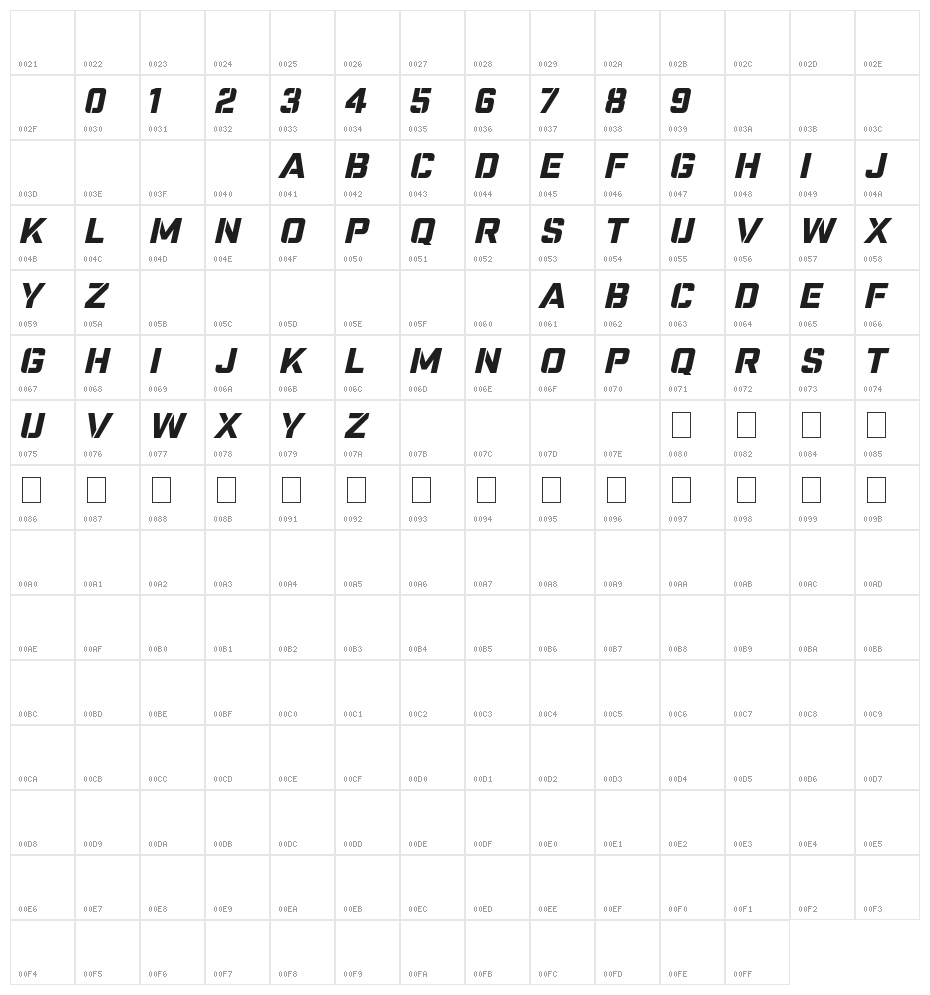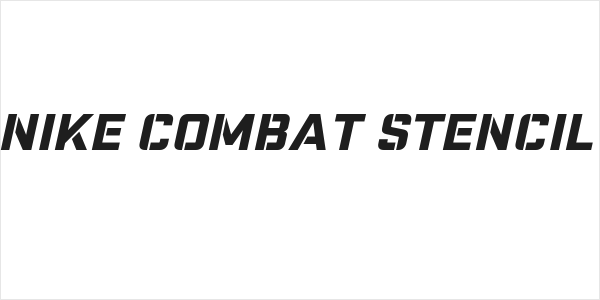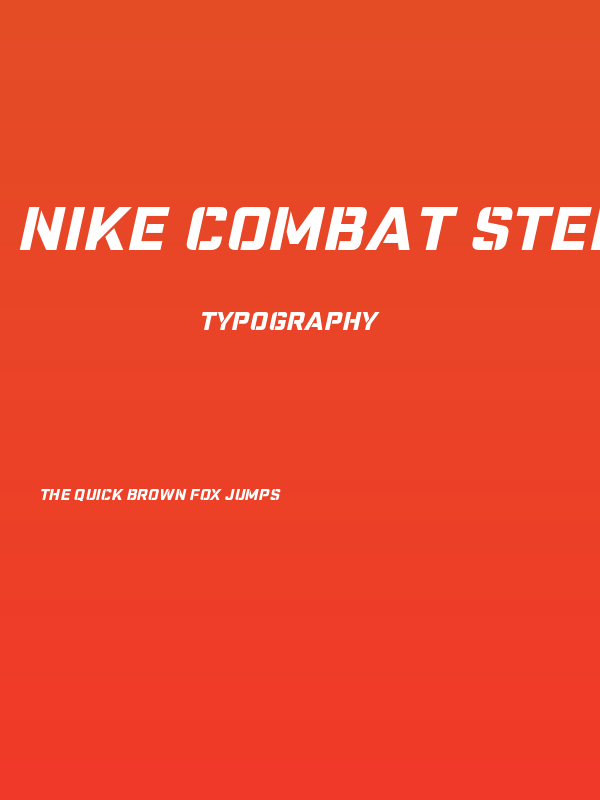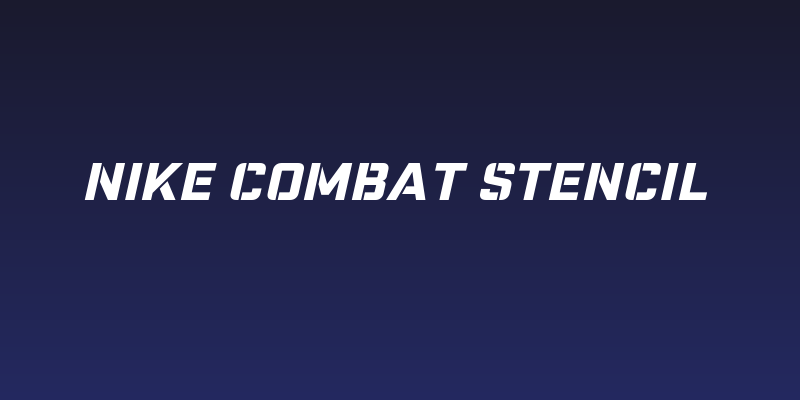
Nike Combat Stencil Font
Nike Combat Stencil Description
This font features a bold, angular design with a distinct stencil-like appearance, characterized by its sharp edges and geometric shapes. The uppercase letters are particularly striking, with a military-inspired aesthetic that conveys strength and precision. The numbers follow the same design principles, ensuring consistency across all characters. This font is ideal for projects that require a strong, impactful presence, such as branding for sports teams or outdoor equipment. Its unique style makes it stand out, while the stencil elements add a touch of industrial flair.
Proposed ProjectsIdeal for sports branding, military-themed designs, and outdoor equipment logos.